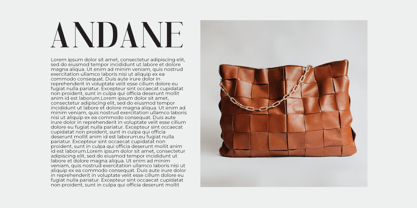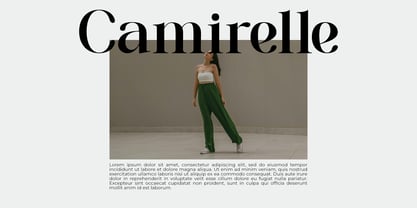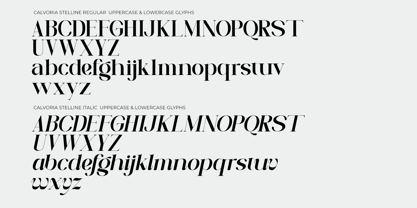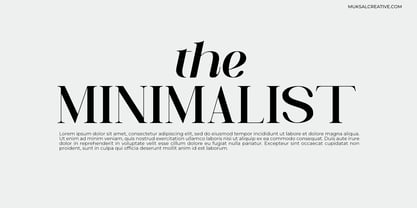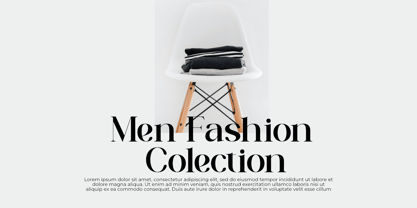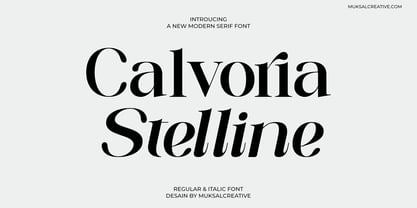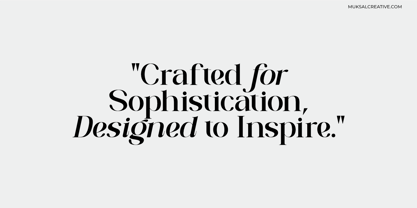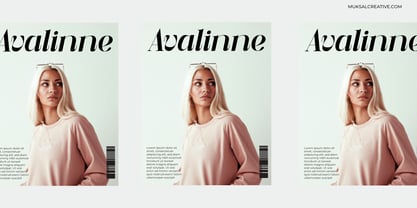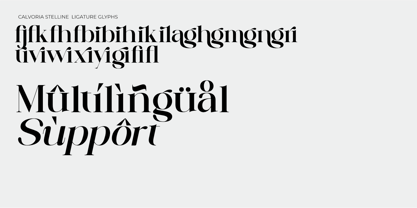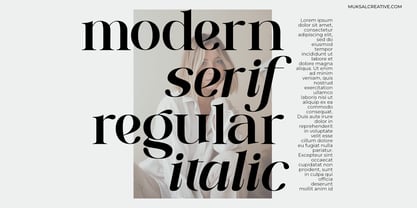
Calvoria Stelline
The Calvoria Stelline Font Family was designed by Muksalmina and published by Muksal Creatives. Calvoria Stelline contains 2 styles and family package options. More about this family
Calvoria Stelline is a modern serif font that blends timeless elegance with a refined contemporary touch. Featuring two styles—Regular and Italic—it is crafted with balanced proportions, sharp details, and graceful curves, making it ideal for designs that demand sophistication, clarity, and charm. Perfect for editorial layouts, branding, wedding invitations, fashion logos, and any project that seeks to make a confident and stylish impression.
With Calvoria Stelline, every letter speaks the language of beauty—calm, poised, and enduring.